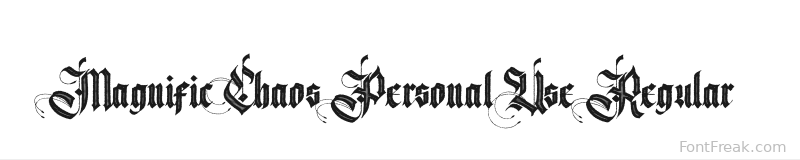
Magnific Chaos Personal Use Regular
About Magnific Chaos Personal Use Regular
Magnific Chaos Personal Use Regular is a captivating decorative typeface designed by Billy Argel Fonts. This font falls into the display category, ideal for projects that require a touch of flair and artistic expression. Its unique visual characteristics feature an ornate design with elegant swirls and intricate details, combining a bold stroke weight with a moderate contrast that makes it stand out in any setting. The spacing is well-balanced, allowing for easy readability while still maintaining its decorative essence.
This font is perfect for a variety of creative applications. It can enhance wedding invitations, giving them a romantic and whimsical feel. For movie posters, its dramatic flair can draw attention and evoke a sense of intrigue. Additionally, it works wonderfully for restaurant menus, especially in establishments aiming for a vintage or artistic atmosphere. Graphic designers will find it invaluable for branding projects that require a distinctive and memorable touch. Content creators can utilize this font in social media graphics to capture their audience's attention with its unique style.
The target audience for Magnific Chaos Personal Use Regular includes graphic designers, small business owners, and content creators who seek to infuse their projects with a sense of creativity and personality. Whether you are designing a logo, crafting promotional materials, or creating digital content, this font provides an exceptional choice for those looking to make a lasting impression.
What truly sets the Magnific Chaos Personal Use Regular font apart is its ability to blend artistry with functionality. Its striking design not only captures attention but also enhances the emotional impact of any project. With a Magnific Chaos Personal Use Regular font free download available, you can easily incorporate this stunning typeface into your creative toolkit and elevate your designs to new heights.